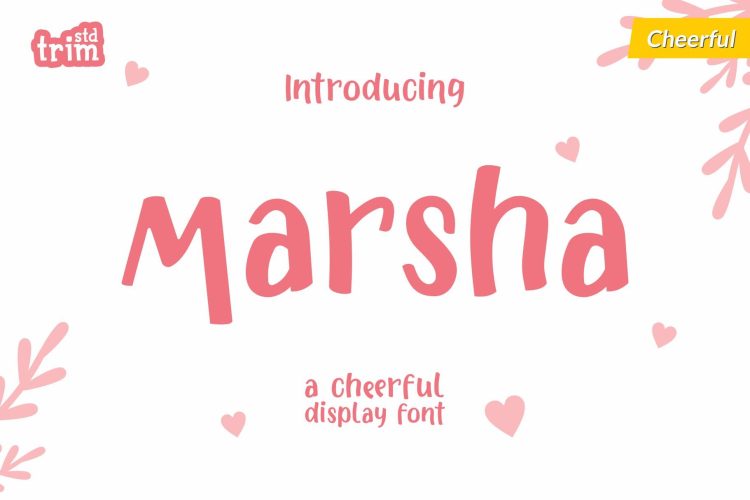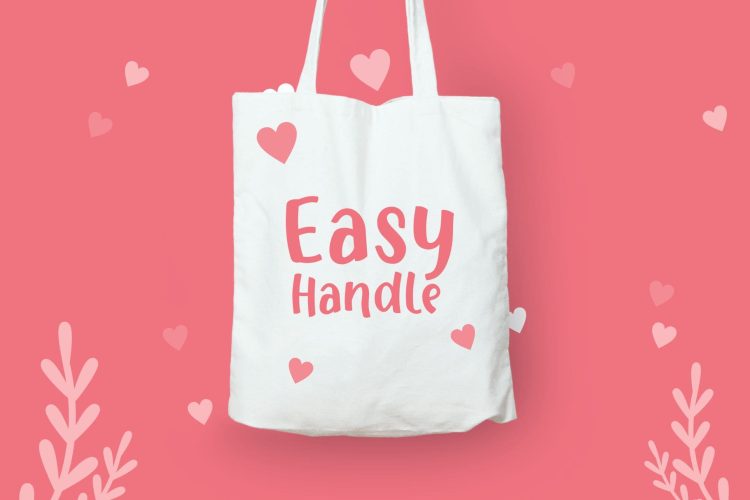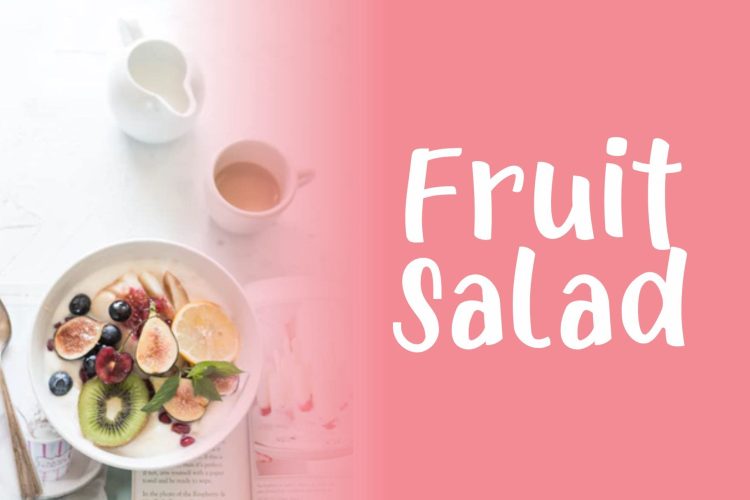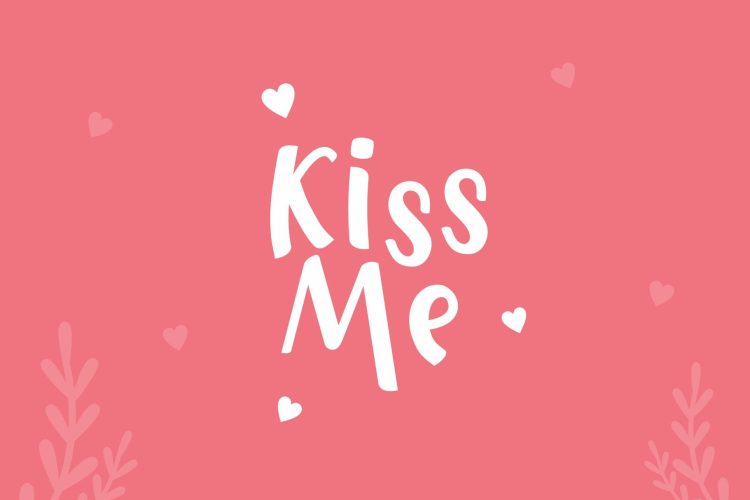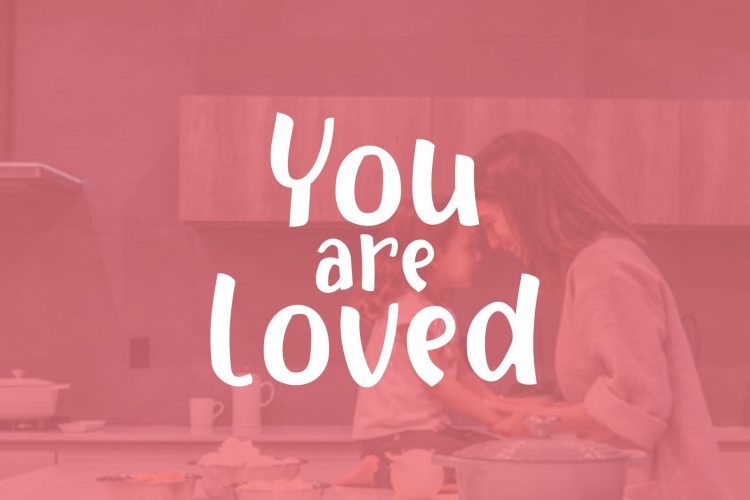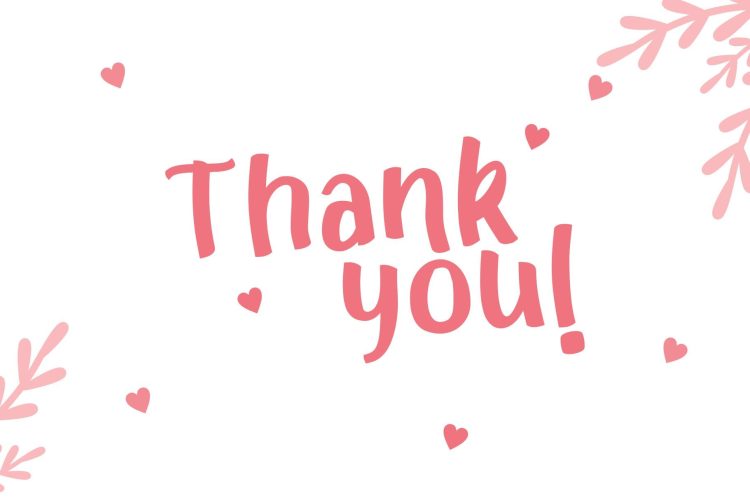
Marsha is a cheerful font that gives your design happiness and love. This font is perfect for showing your affection!
Marsha – Cheerful and Lovely Display Font